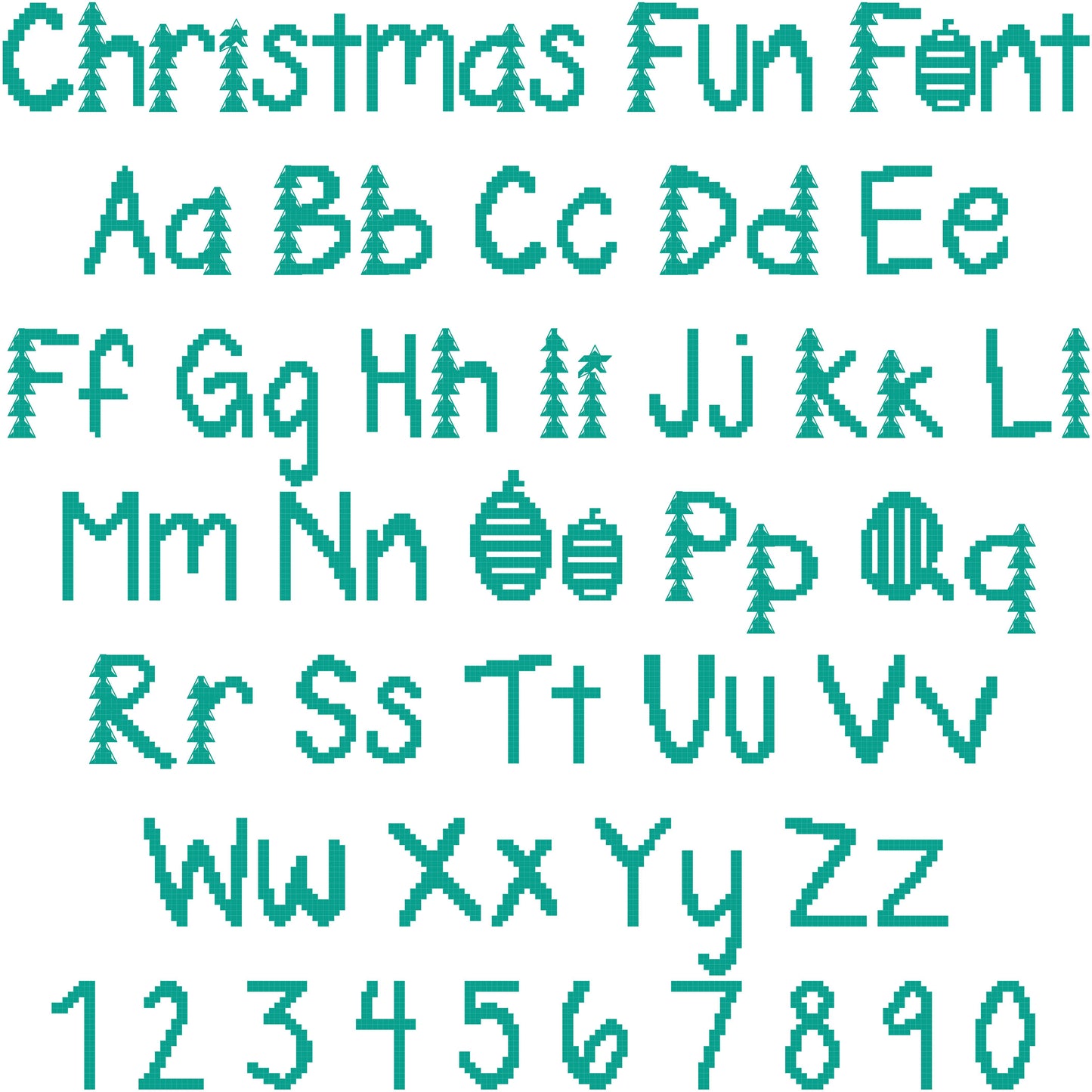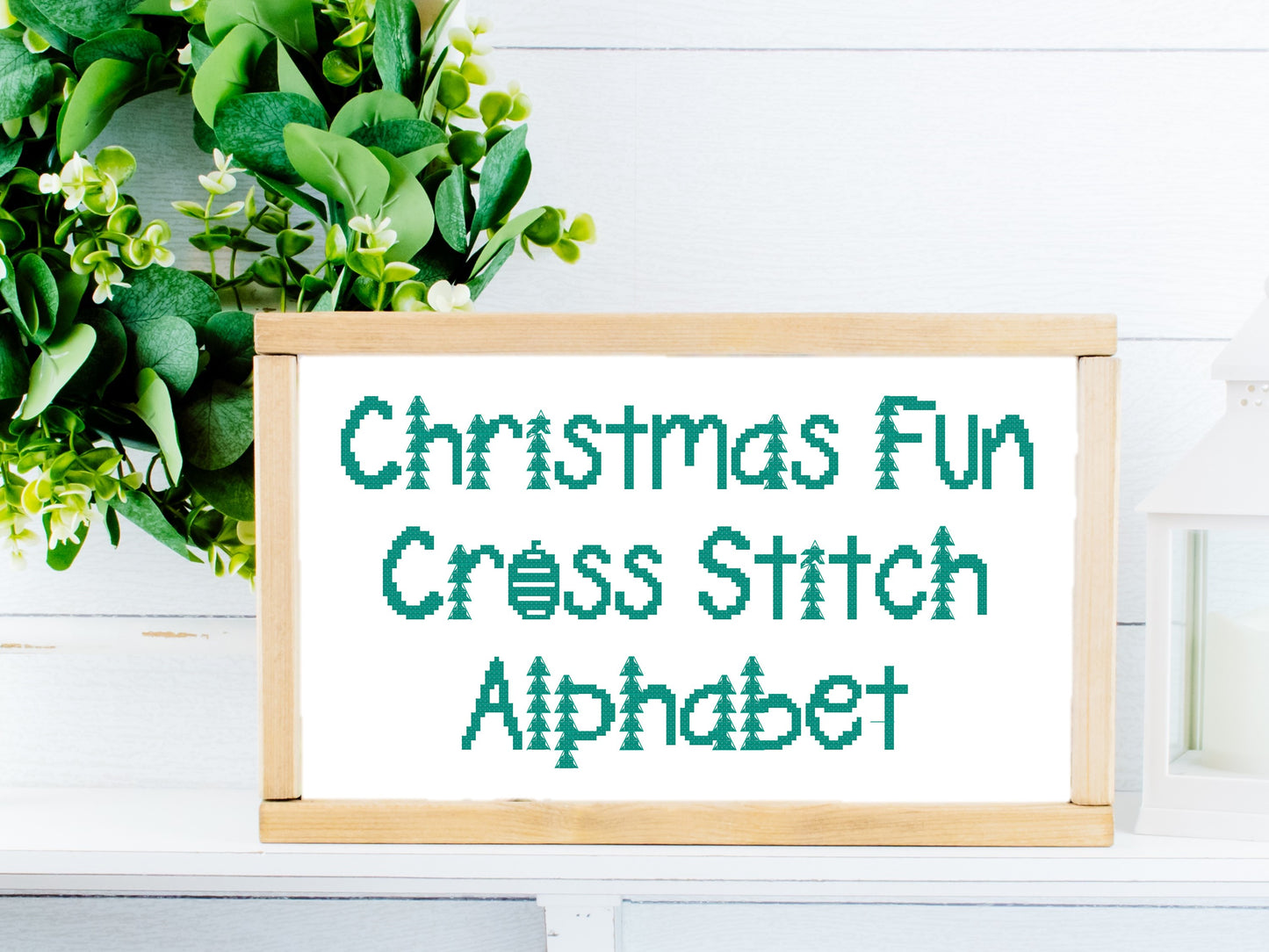
Christmas Fun Font PDF Pattern
This cross stitch font is easy and FUN and features stacked triangle trees and ornament "o"s.
✂DETAILS:
Capital letters measure 5-19 stitches wide x 20 stitches tall (Except for O)
Lowercase letters measure 5-16 stitches wide x 16-20 stitches tall
Perfect for Christmas stockings and other small projects
Larger Fonts (with letters measuring 10-20 stitches wide) can usually accommodate names up to 9-10 letters long (assuming your cuff fabric is about 100 stitches wide and there are no additional motifs to either side of the name).